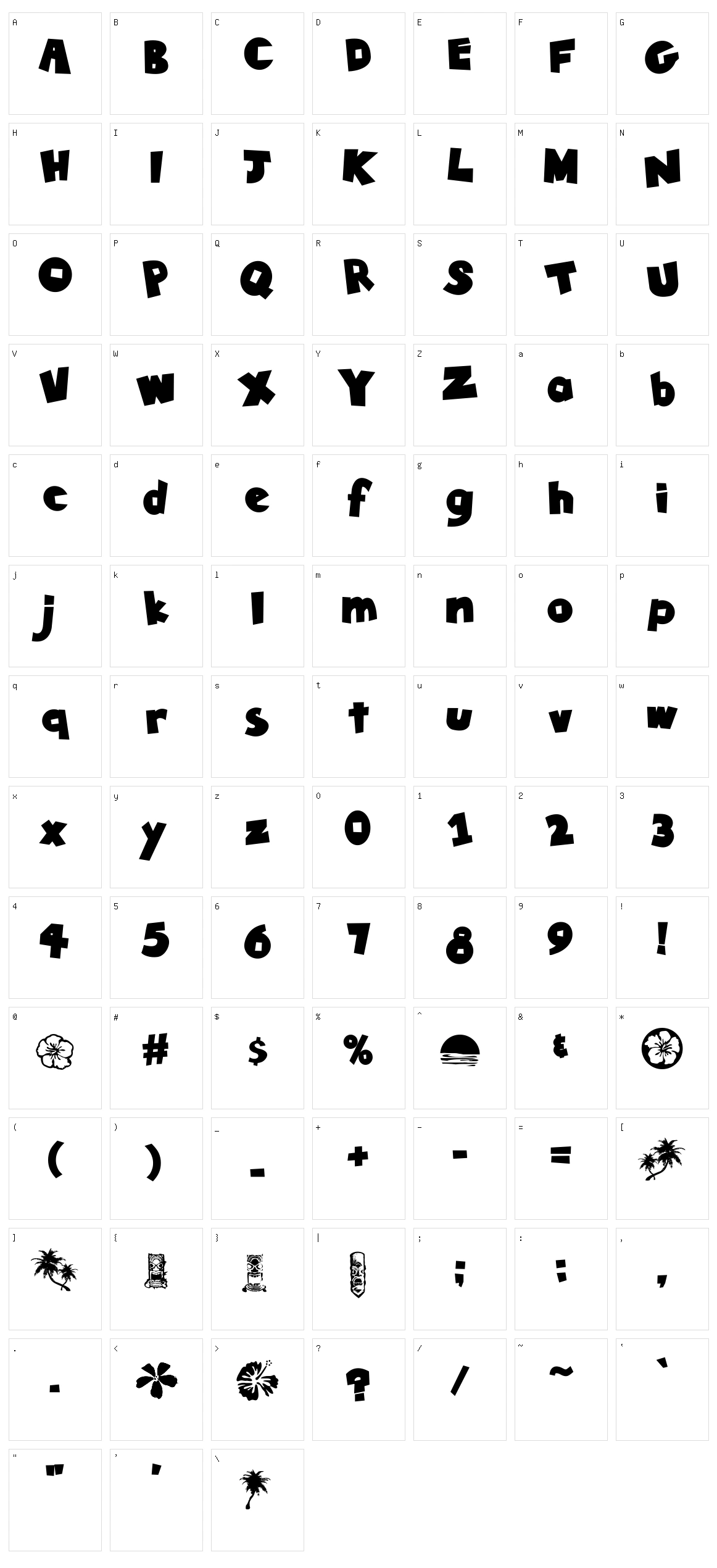
TrueTypeFont: Tiki Tropic (Regular, and Outline)
Aloha sun worshippers! Whether Hawaii is your idea of paradise, exotic Thailand, or beautiful Costa Rica we have a typeface that wants to take you there. This irregular display font is
sure to make the others look pale by comparison. Think "fun in the sun", island drinks, and sandy beaches the next time you'd like to inject a splash of the tropics. Tiki Tropic is loaded
with graphics like jumping dolphins, palm trees, and Tiki masks to quickly add some visuals to a text document. You can also quickly convert to vector outlines in Illustrator. Basic latin,
numbers, punctuation, European accents, and kerning are all included.